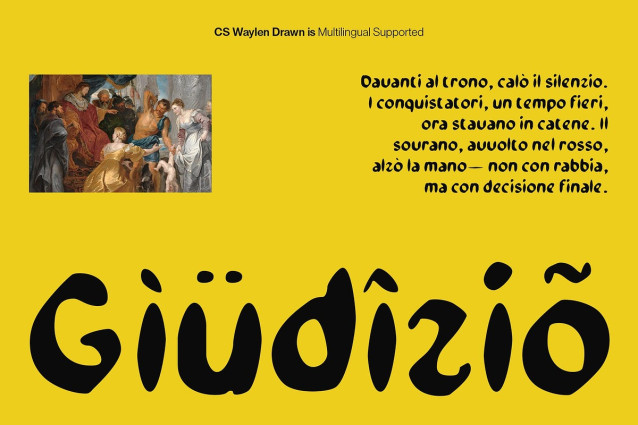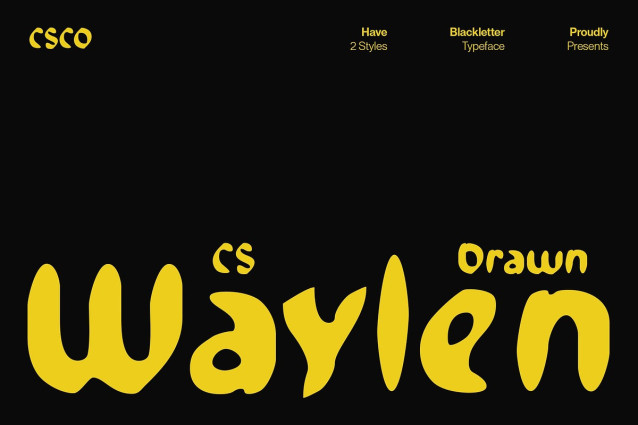
CS Waylen Drawn Font
CS Waylen Drawn Font is a modern blackletter display font that reimagines traditional Gothic elements with a fresh perspective. It features sharp angles, fractured strokes, and strong vertical rhythm, all hallmarks of blackletter design—yet its updated proportions and refined structure make it more versatile for today’s creative landscape.
Hand-Drawn Texture for Expressive Personality Infused with a drawn effect, this font takes on a handmade, organic quality that softens its sharp features and adds a raw, human touch. The texture introduces imperfections and artistic irregularity, giving each letter a worn, expressive, and less rigid feel, perfect for visual storytelling with soul.
Strong Character Meets Visual Style This font has a bold and commanding presence, with a raw, artistic edge that strikes a balance between powerful visual impact and artistic expressiveness. Its boldness commands attention, while the handcrafted nuances make it feel personal and authentic. The font embodies a sense of rebellion, energy, and creative edge, standing out in both digital and print media.
Perfect for Subculture, Music, and Experimental Design Whether you’re designing for alternative fashion brands, underground music scenes, edgy editorials, or experimental posters, this expressive font delivers a look that’s bold, distinctive, and full of attitude. It’s an ideal choice for projects that thrive on strong identity and modern subcultural aesthetics.